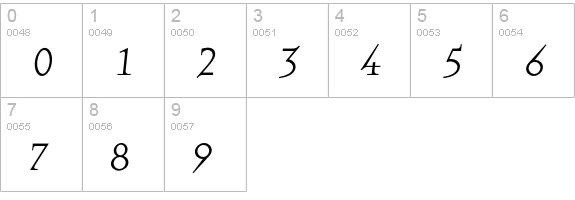
QuartetSmallcapsRegular Font Details
QuartetSmallcapsRegular font is a perfect blend of elegance and versatility. Its refined and sophisticated design makes it suitable for a wide range of creative projects, from logos to headings and everything in between. With its clean lines and balanced proportions, this font exudes a timeless charm that captures attention effortlessly. The QuartetSmallcapsRegular font features a unique combination of uppercase and lowercase letters, with small caps that add a touch of distinction to any text. Its smooth curves and precise letterforms create a polished and professional appearance, making it a favorite among designers and typographers. But what sets QuartetSmallcapsRegular font apart is that it is not only visually stunning, but also freely available to download at FontsMarket.com. This means that anyone can access and use this remarkable font without any cost, making it an invaluable resource for both personal and commercial projects. Whether you are a seasoned designer or just starting out, QuartetSmallcapsRegular font offers endless possibilities for creative expression. Its versatility allows it to seamlessly adapt to various design styles and purposes, making it a truly versatile and essential addition to any font collection. So why wait? Discover the beauty and flexibility of QuartetSmallcapsRegular font today. Download it for free at FontsMarket.com and unlock a world of design possibilities.